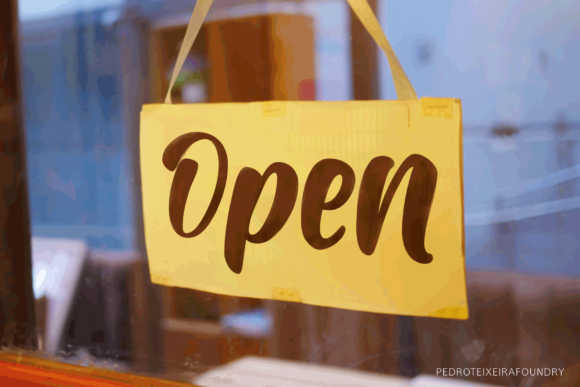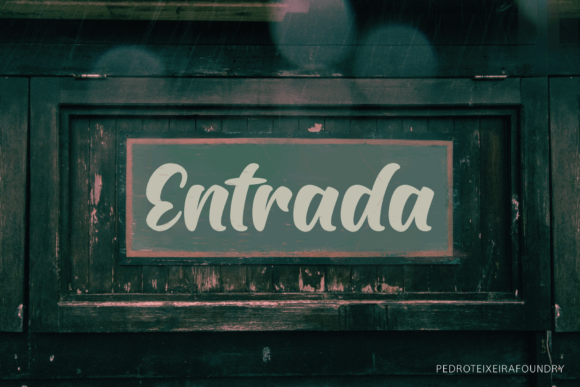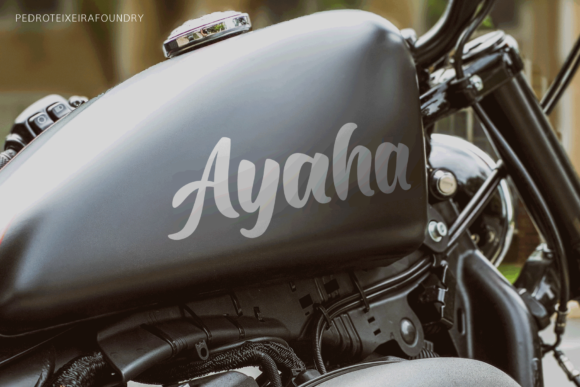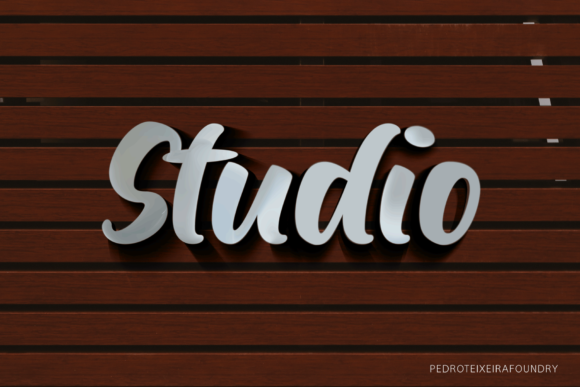
Ayaha Font
About Ayaha Font
Ayaha was inspired by brush lettering and has a friendly look. This beautiful script font is not connected, that way you can letter-space without resulting in a weird design. Ayaha comes with alternate stylistic sets to add value to your projects. Good for branding, magazine, header, poster, logotype, packaging, and so on.